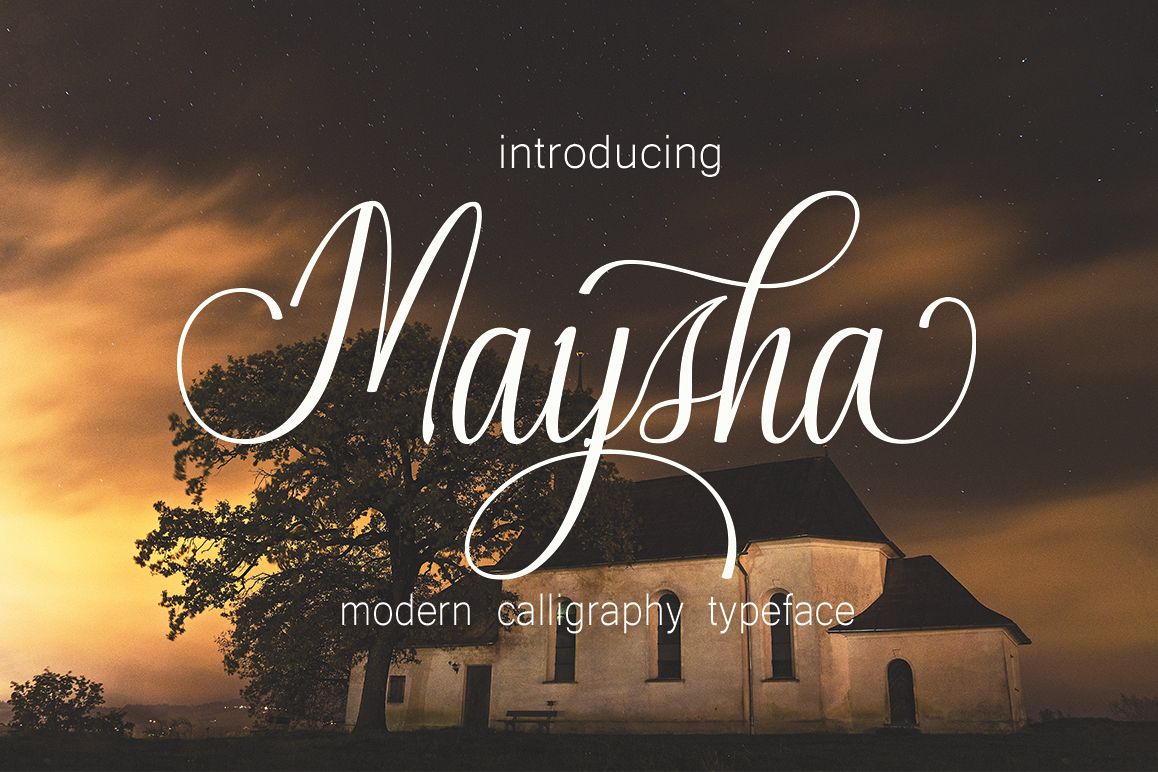
Maysha
Maysha is a font that made the hand by having the character up and down like a dancer. Maysha has a very unique style of calligraphy, it is very suitable for use in the work of modern design.
* Contextual Alternates
* Standart ligatures
* Stylistic Alternates
* Stylistic sets
* Swash
Can be used for various purposes.such as headings, logos, wedding invitation, t-shirt, letterhead, lable, news, posters, badges etc. To enable the OpenType Stylistic alternates, you need a program that supports OpenType features such as Adobe Illustrator CS, Adobe Indesign & CorelDraw X6-X7.a font that made the hand by having the character up and down like a dancer. Maysha has a very unique style of calligraphy, it is very suitable for use in the work of modern design.